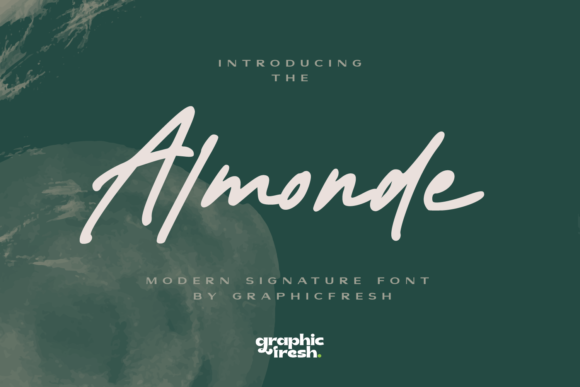
The Perfect Brush Stroke: Unleashing the Power of Almonde Font
Have you ever been working on a design project, staring at a blank canvas, and suddenly, a spark of creativity hits you? The idea flows, and you know exactly what you want to create. That’s what happened to designers when they discovered the Almonde Font. This flexible paint brushed script font has been a game-changer in the world of design, and for good reason.
Almonde Font is a masterclass in asymmetrical characters, each one uniquely crafted to bring a touch of elegance to any design. Whether you’re creating eye-catching logos, branding, or quotes, Almonde Font is the perfect choice. Its beauty lies in its imperfections, making every letter a work of art that brings your design to life. For designers, Almonde Font is a valuable asset, offering endless possibilities to create something truly special.
- Unique Characteristics: Almonde Font features a unique blend of modern and vintage elements, with intricate details and ornaments that set it apart from other fonts.
- Font Style: Almonde Font is available in a single style, but it can be easily customized to suit various design needs through font manipulation tools.
Designer Review: Almonde Font
- Unique style: Almonde Font has a distinctive look that sets it apart from other fonts. Its combination of modern and vintage elements makes it perfect for projects that need a bit of edge.
- Good legibility: Despite its quirky design, Almonde Font is surprisingly easy to read, making it a great choice for body text.
- Large character set: Almonde Font comes with a wide range of characters, including punctuation marks and symbols, which is a big plus for designers who need a font that can handle complex text.
- Limited versatility: While Almonde Font is great for certain projects, it may not be the best choice for others. Its unique style can be overpowering in some cases, making it difficult to use as a default font.
- No bold or italic versions: Almonde Font only comes in a regular weight, which can be a limitation for designers who need to emphasize certain text.
Overall, I think Almonde Font is a great addition to any designer’s toolkit. While it has some limitations, its unique style and good legibility make it a great choice for projects that need a bit of flair. Just be sure to use it judiciously and pair it with other fonts that complement its style.
Almonde Font is ideal for:
Headings and titles
Body text for creative projects
Marketing materials, such as brochures and flyers
Web design and development
Use Almonde Font in combination with other creative fonts to add visual interest.
Comparison: While Almonde Font has a unique, handwritten feel, Lato Font is more straightforward and modern. Lato Font is a better choice for projects that require a clean and professional look.
The Almonde Font family supports the Latin alphabet, as well as a range of international characters, including Greek, Cyrillic, and many languages of the European Union. It also includes a comprehensive set of punctuation and symbol characters.